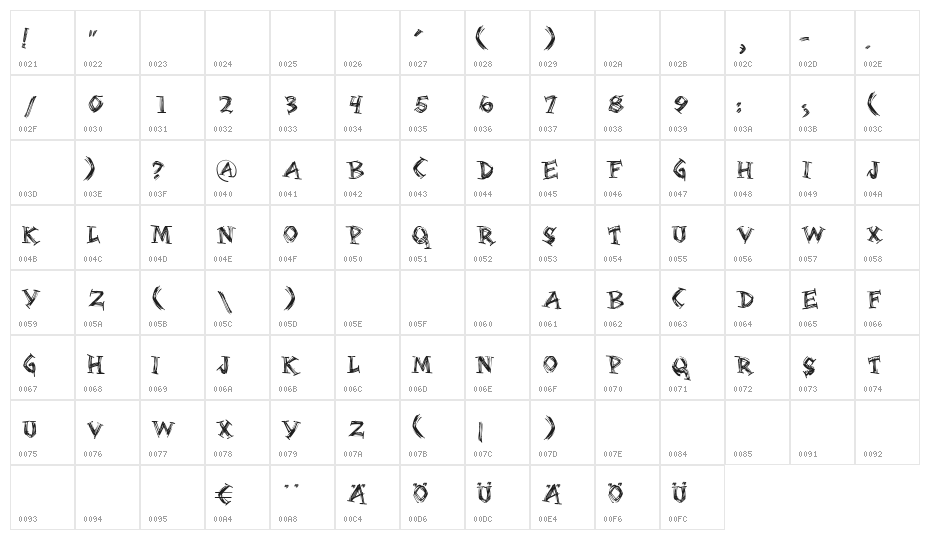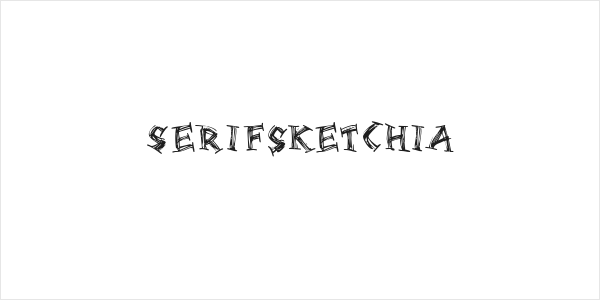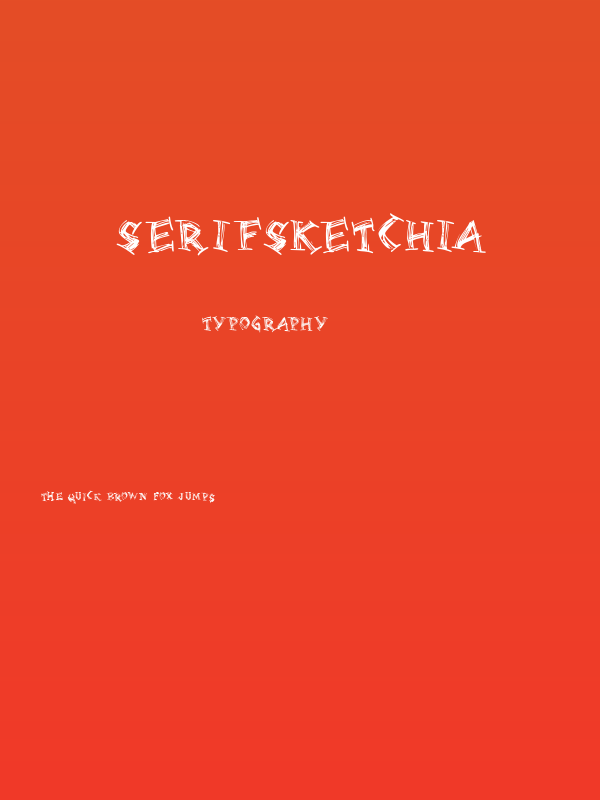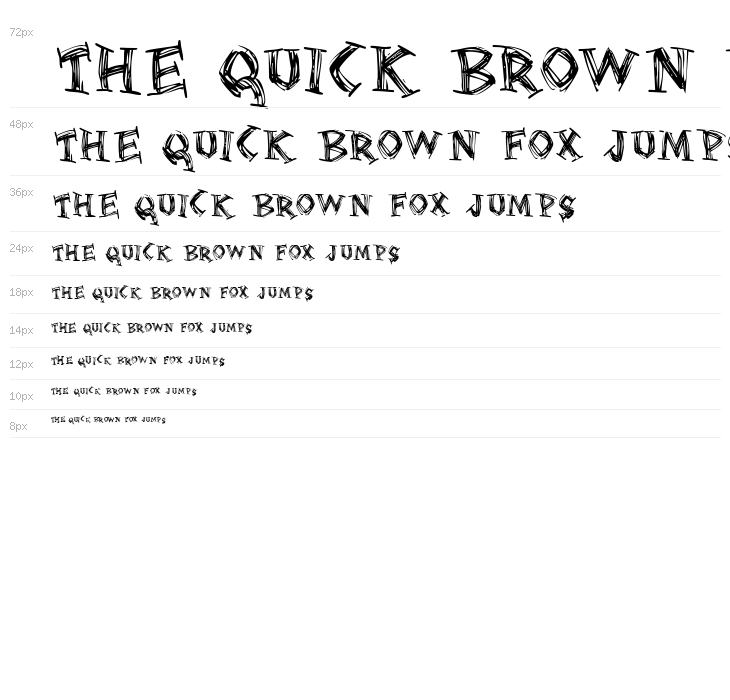
Serifsketchia Font
Serifsketchia Description
This font exhibits a playful and artistic style, characterized by its sketch-like appearance. Each letter is crafted with uneven strokes, giving it a hand-drawn feel. The characters have a dynamic and energetic look, with varying thickness in the lines that create a sense of movement. The font maintains a consistent baseline, but the irregularity in the strokes adds a unique charm. It includes both uppercase and lowercase letters, numbers, and a selection of special characters, all following the same sketchy aesthetic. The overall impression is one of creativity and spontaneity, making it suitable for projects that require a touch of whimsy and artistic flair.
| Overall Style | Artistic |
| Use Case | Logos, Posters, Creative projects |
| Proposed Projects | Ideal for creative projects such as children's book covers, artistic posters, or branding for creative industries. |